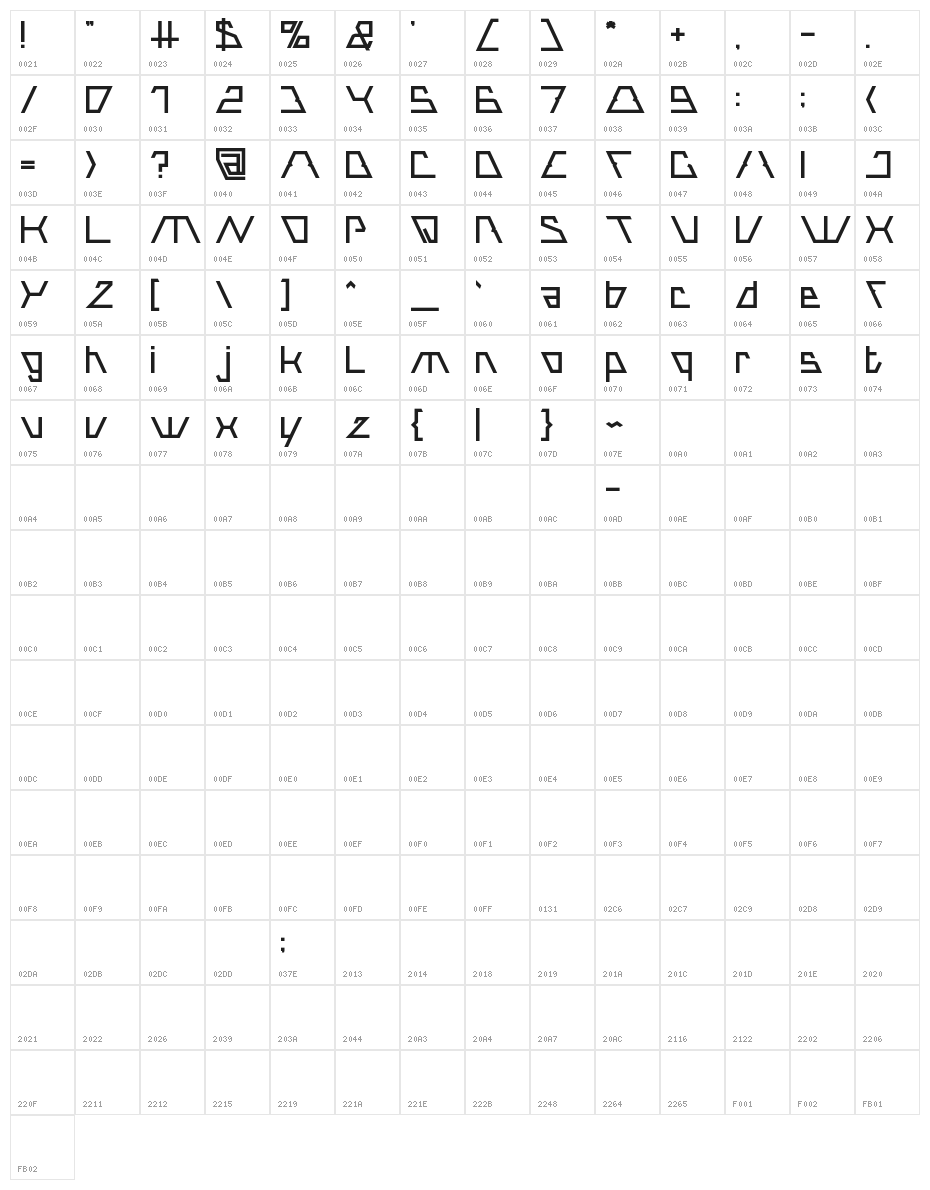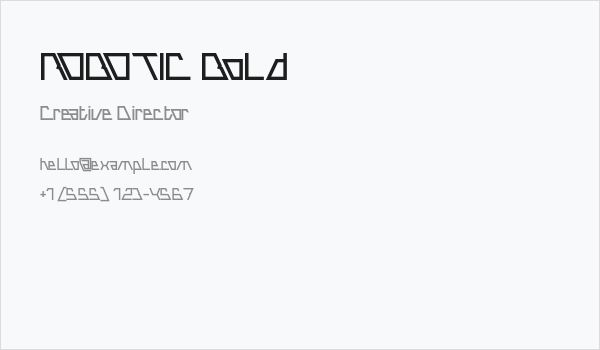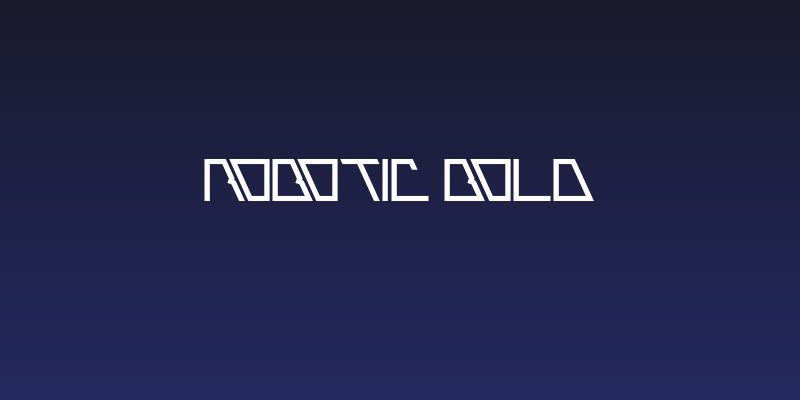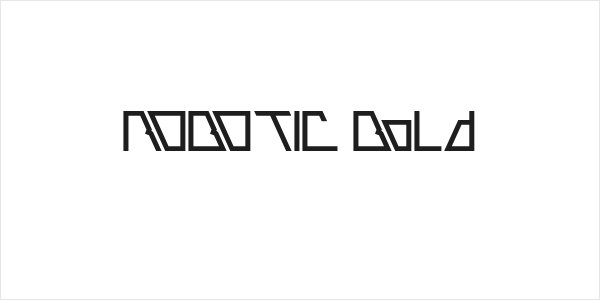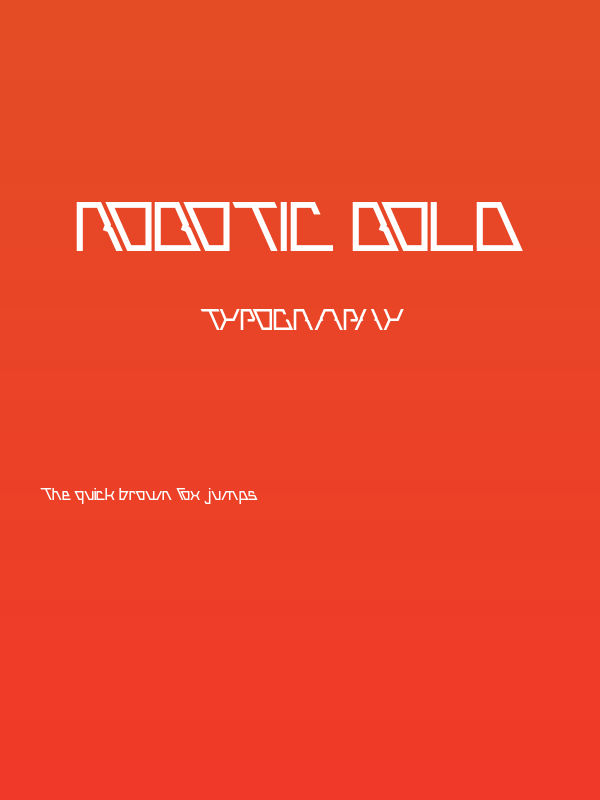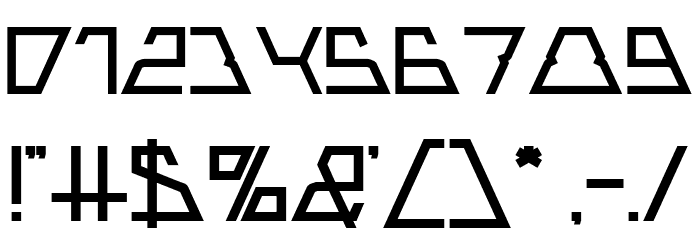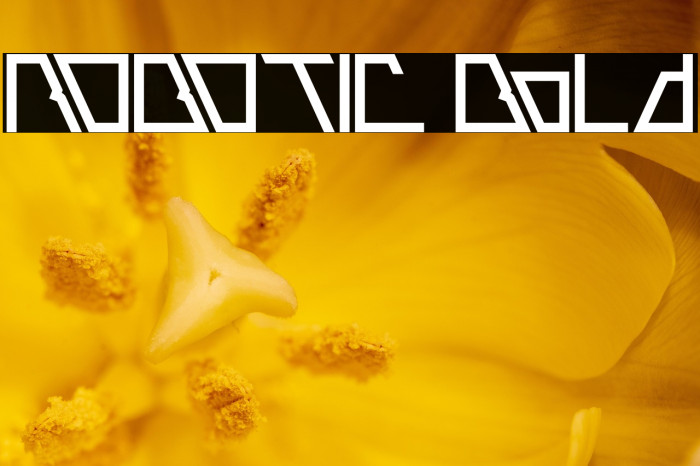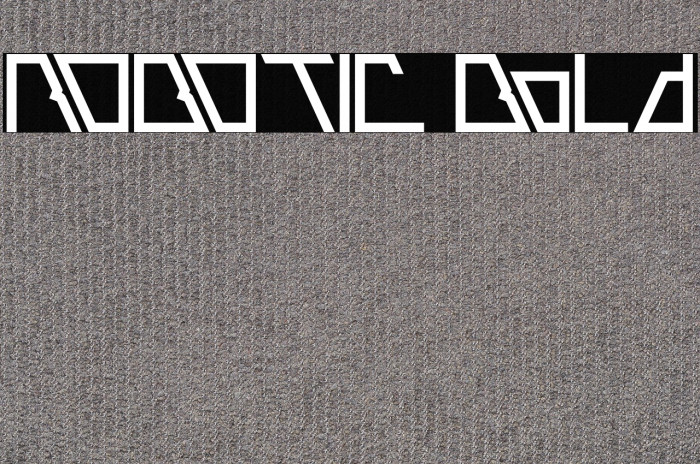
ROBOTIC Bold Font
ROBOTIC Bold Description
This font features a futuristic and angular design, characterized by sharp edges and geometric shapes. The letters are constructed with a bold, thick stroke, giving them a strong presence. The style is reminiscent of digital or robotic aesthetics, with a modern and tech-inspired look. The uppercase and lowercase letters maintain a consistent angular theme, while the numbers and special characters follow suit with similar geometric patterns. The overall design is striking and attention-grabbing, making it suitable for projects that require a modern and edgy appearance.
| Proposed Projects | Ideal for technology branding, video game titles, sci-fi movie posters, and digital interfaces. |